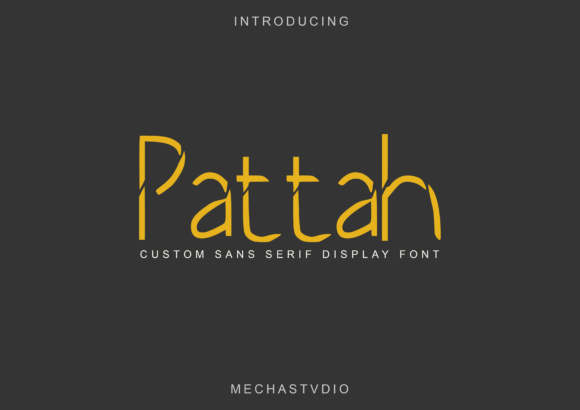
Welcome to the realm of Pattah, a display font family that captivates with its unique aesthetics. A creation by MechaStudio, Pattah exudes a delightful blend of simplicity, boldness, and creativity that's sure to leave a lasting impression. Immerse yourself in this font's distinct character, a seamless fusion of classic and modern elements that ignite inspiration and unleash boundless creativity.
Pattah's striking presence makes it the ideal choice for injecting an aura of sophistication and style into your designs. From captivating logotypes that demand attention to branding projects that radiate professionalism, Pattah effortlessly elevates your visual communication. As you craft stationery that exudes personality or conjure captivating poster designs that speak volumes, Pattah serves as your trusted companion, transforming ordinary designs into extraordinary expressions.
Embark on a visual journey with Pattah, as it dances across social media posts, igniting engagement and creating a buzz among your audience. Whether you're creating captivating posters or crafting social media posts that resonate, Pattah possesses the power to transform your creations into masterpieces. Its alluring charm invites interaction, making your content an irresistible magnet for attention.
Explore the versatility of Pattah - a font that seamlessly adapts to a myriad of design endeavors. Its elegant curves and sharp angles effortlessly harmonize, creating a balanced aesthetic that complements diverse projects. From eye-catching headlines that demand attention to captivating body text that captivates readers, Pattah gracefully enhances every element of your design.